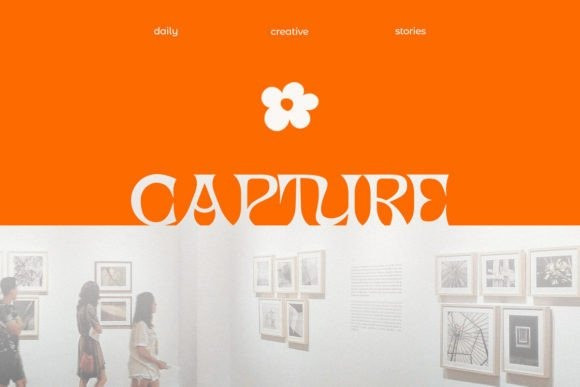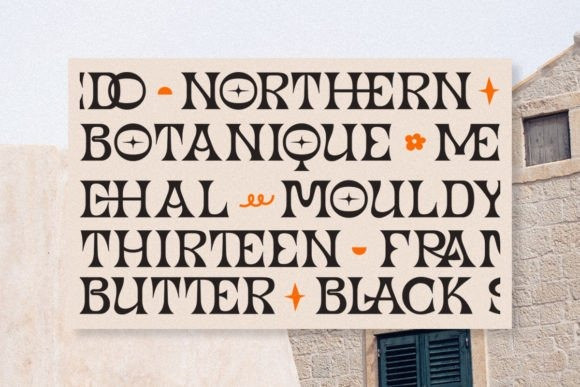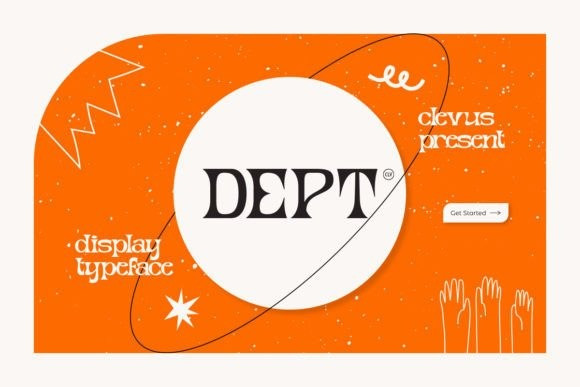
Dept Font
Dept Font is a unique and dynamic display font. Bold and modern, it will give a strong look to any design you wish to create! Use it on your branding and advertising projects, and they will become even more attractive and effective.